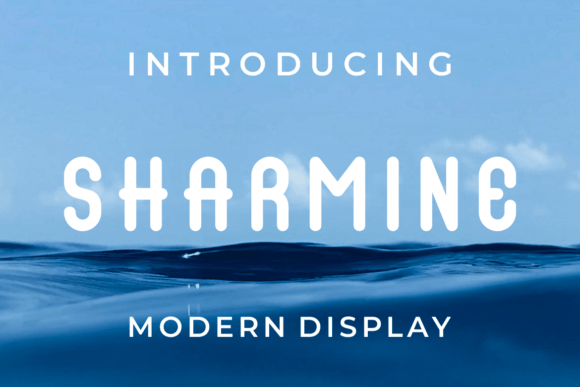
Welcome to the world of Sharmine Font, where your designs will dance with a touch of whimsy and charm! This enchanting display font, meticulously crafted by maikofarazhatta, is a symphony of style and substance, ready to elevate your projects to breathtaking heights.
With its playful curves and cheerful demeanor, Sharmine Font is the perfect choice for adding a touch of joy to any occasion. Its versatility knows no bounds, making it ideal for everything from eye-catching headlines to alluring social media posts. Whether you're designing invitations for a special celebration or creating marketing materials that demand attention, Sharmine Font will effortlessly turn heads and leave a lasting impression.
This font is like a ray of sunshine, instantly brightening up any design with its warm and welcoming presence. Its playful nature evokes a sense of happiness and wonder, making it perfect for projects that aim to spread joy and positivity. From cheerful birthday cards to enchanting nursery décor, Sharmine Font will add a touch of magic to every creation.
We understand that every design is unique, which is why Sharmine Font comes in a stunning array of weights and styles. This ensures that you have the perfect font to match your vision, whether you prefer a bold and assertive look or a delicate and graceful touch.